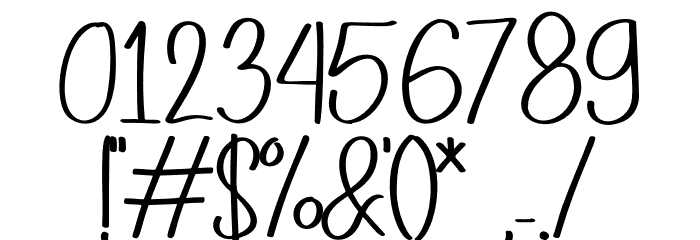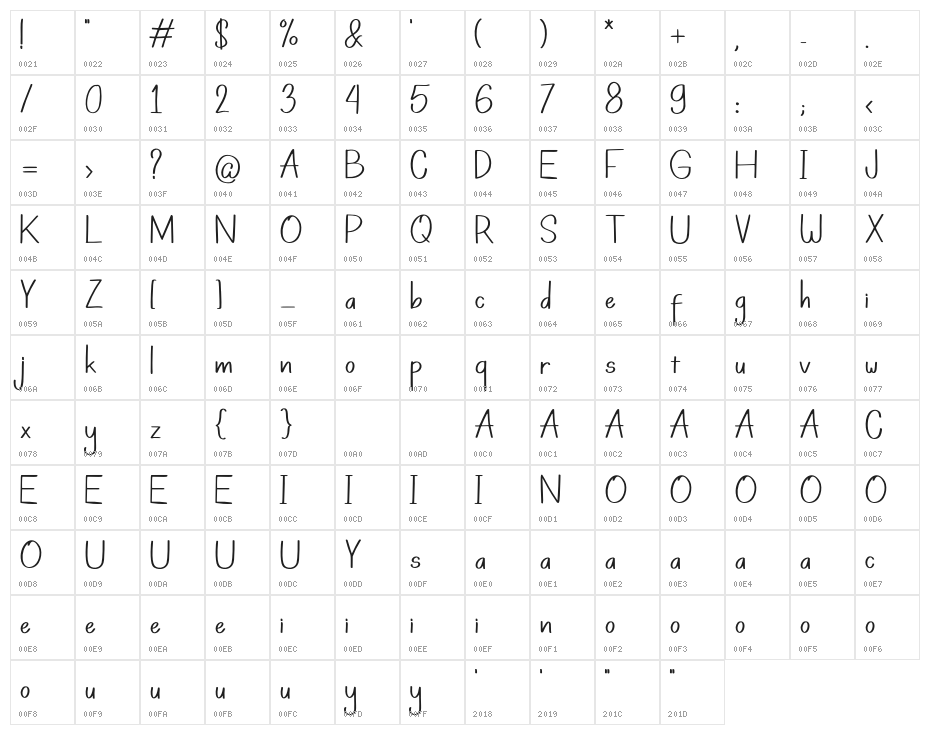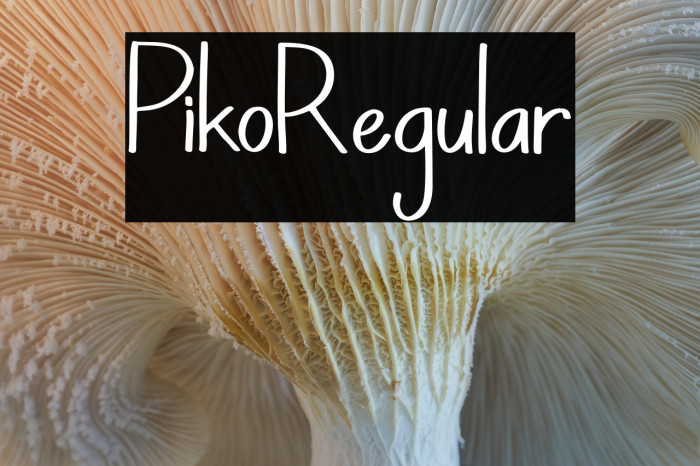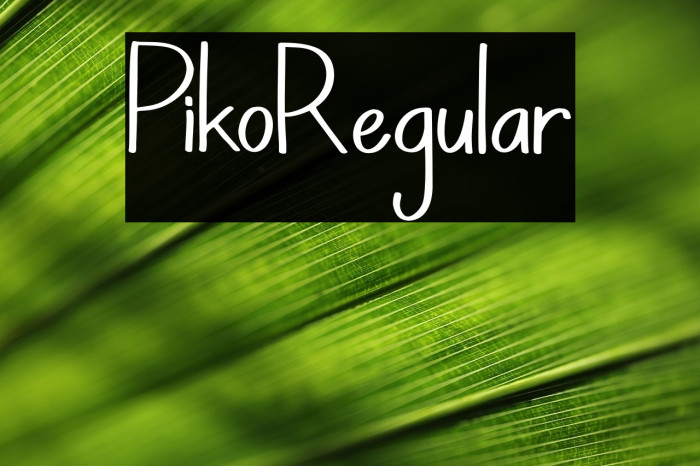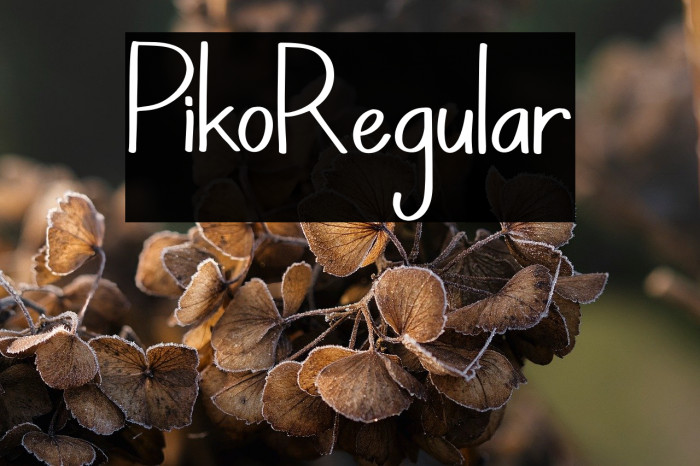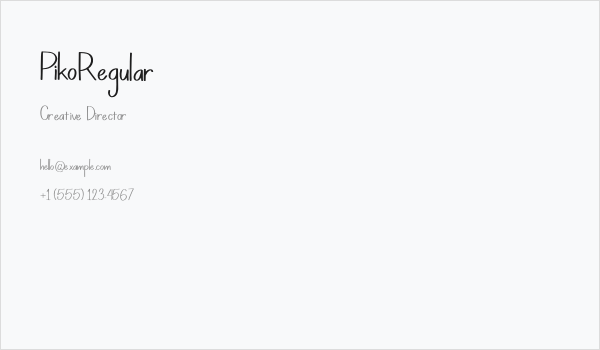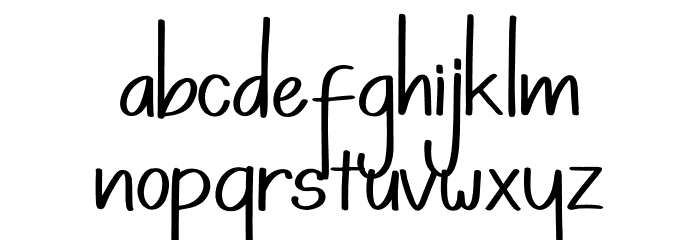
PikoRegular Font
PikoRegular Description
This font features a playful and casual handwritten style, characterized by its tall, narrow letters with a slight slant. The strokes are consistent in width, giving it a uniform appearance, while the rounded edges add a friendly touch. The uppercase and lowercase letters maintain a cohesive look, with the uppercase being slightly taller and more elongated. Numbers and special characters follow the same style, ensuring a harmonious overall design. The font's informal and approachable nature makes it suitable for projects that require a personal or whimsical touch.